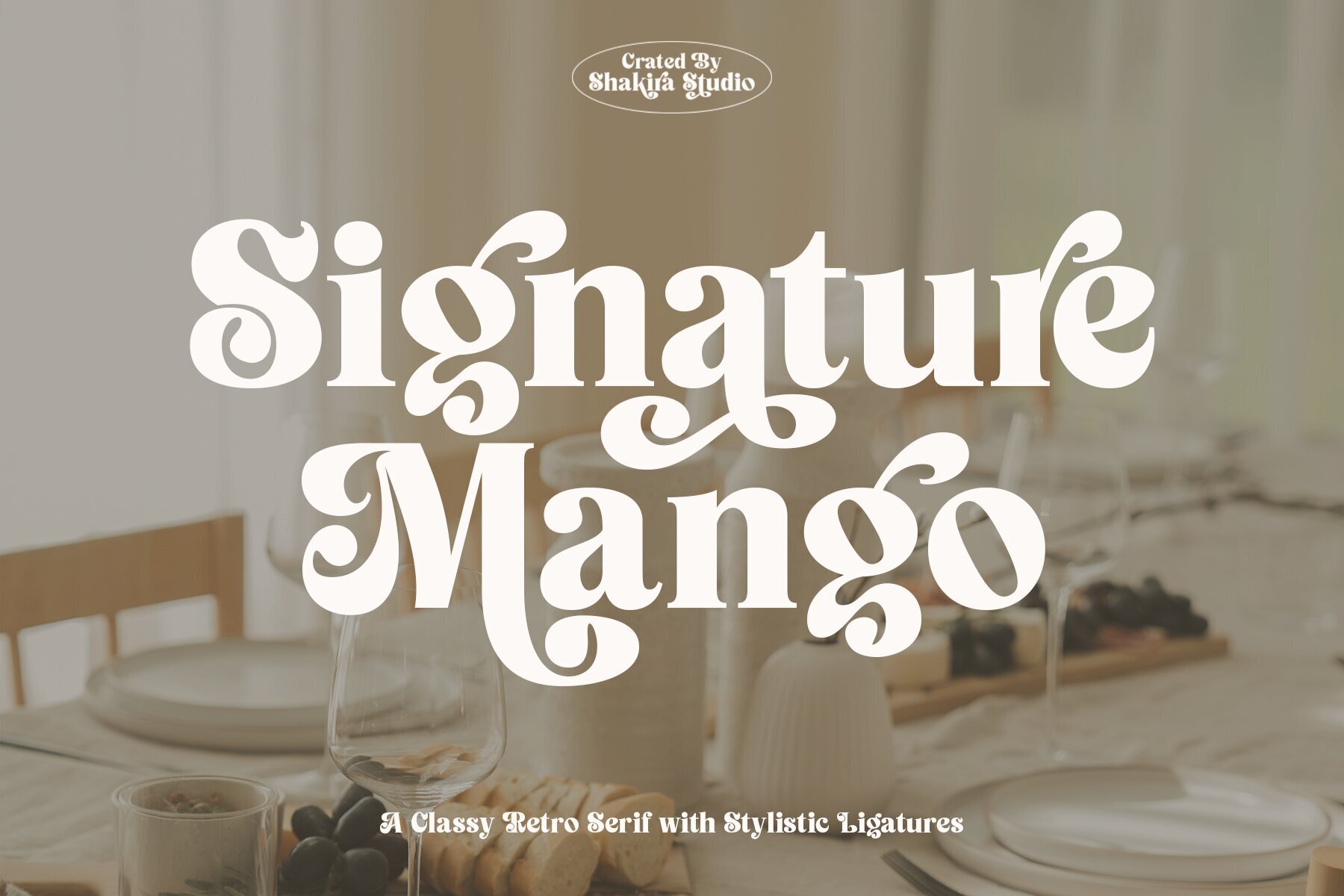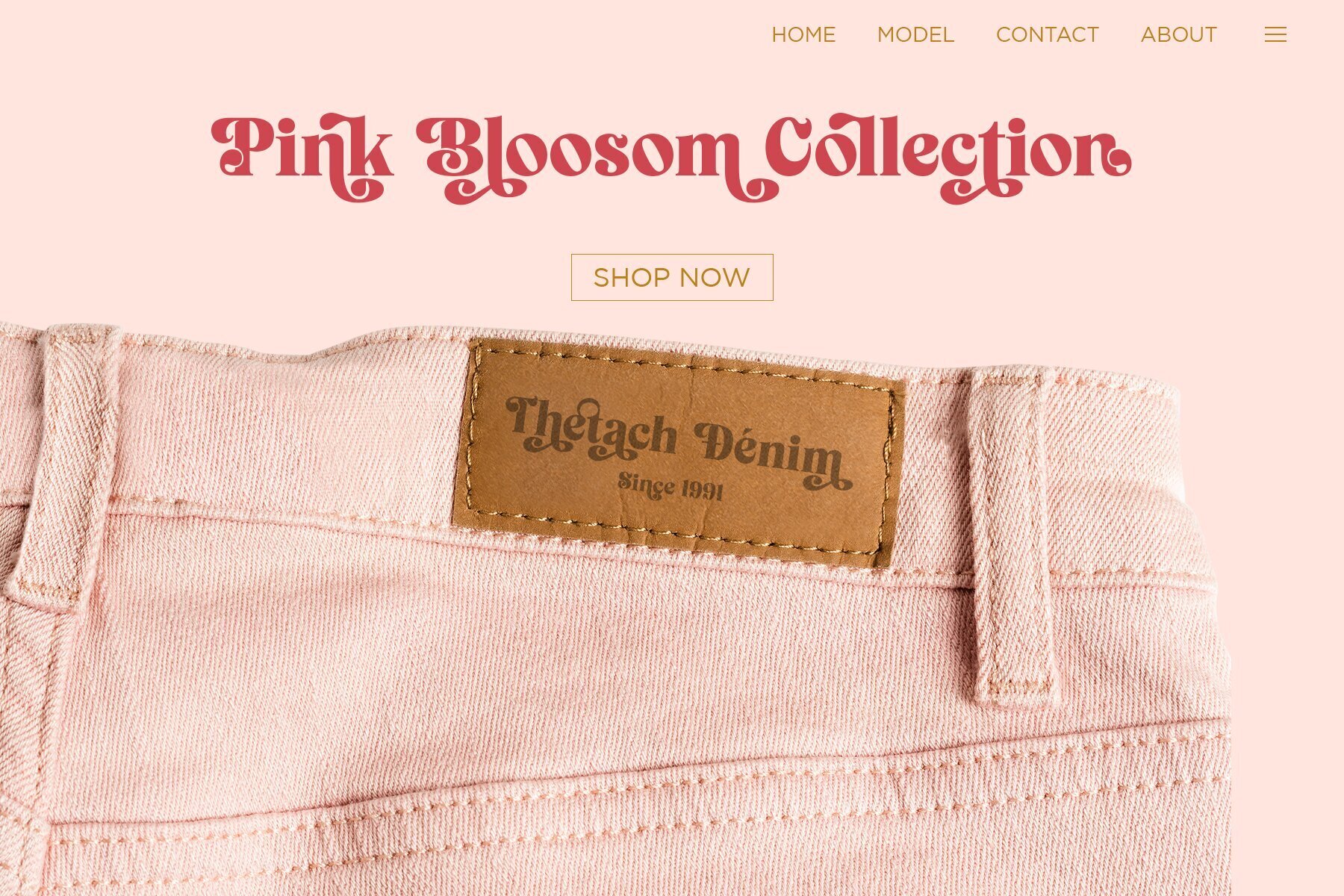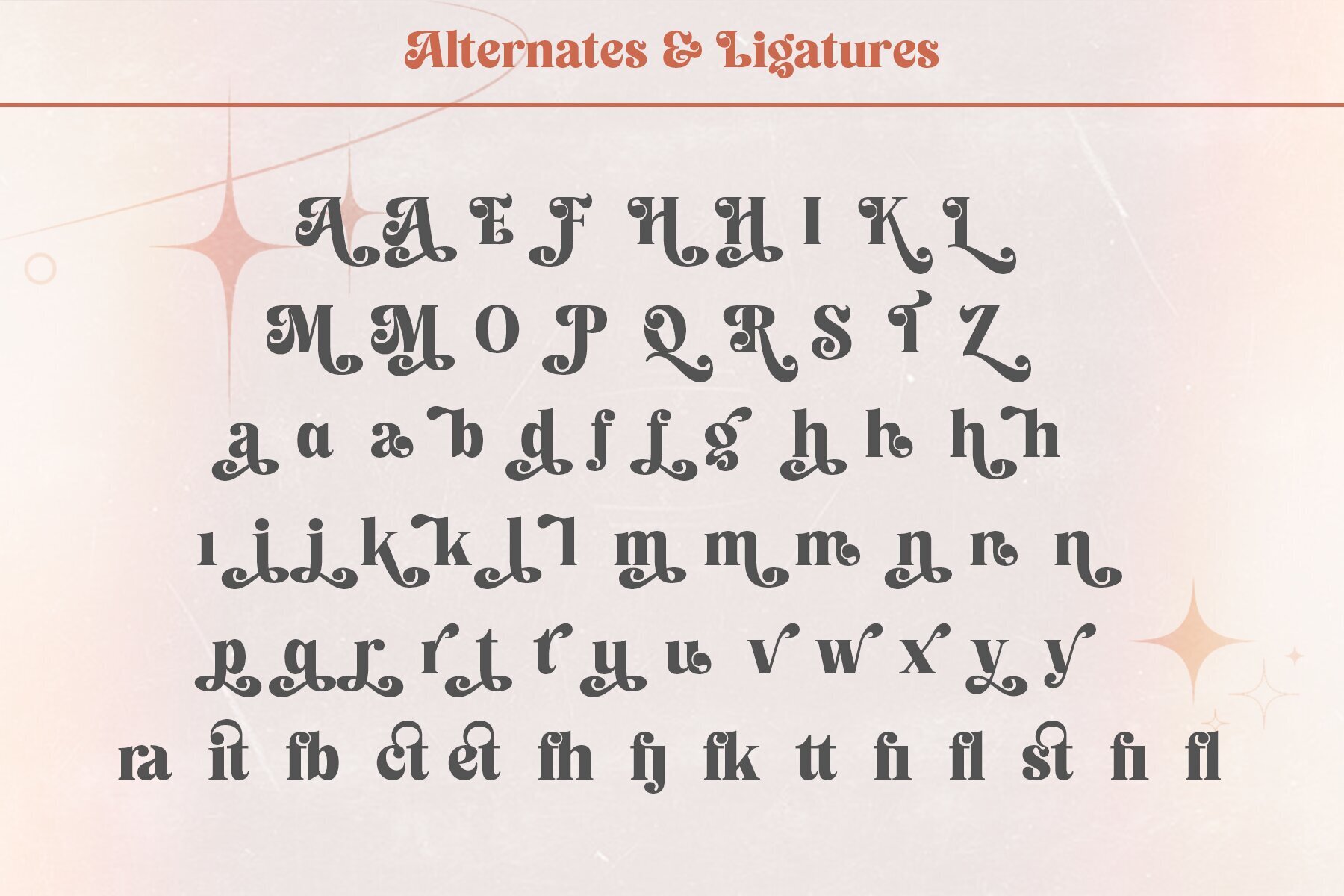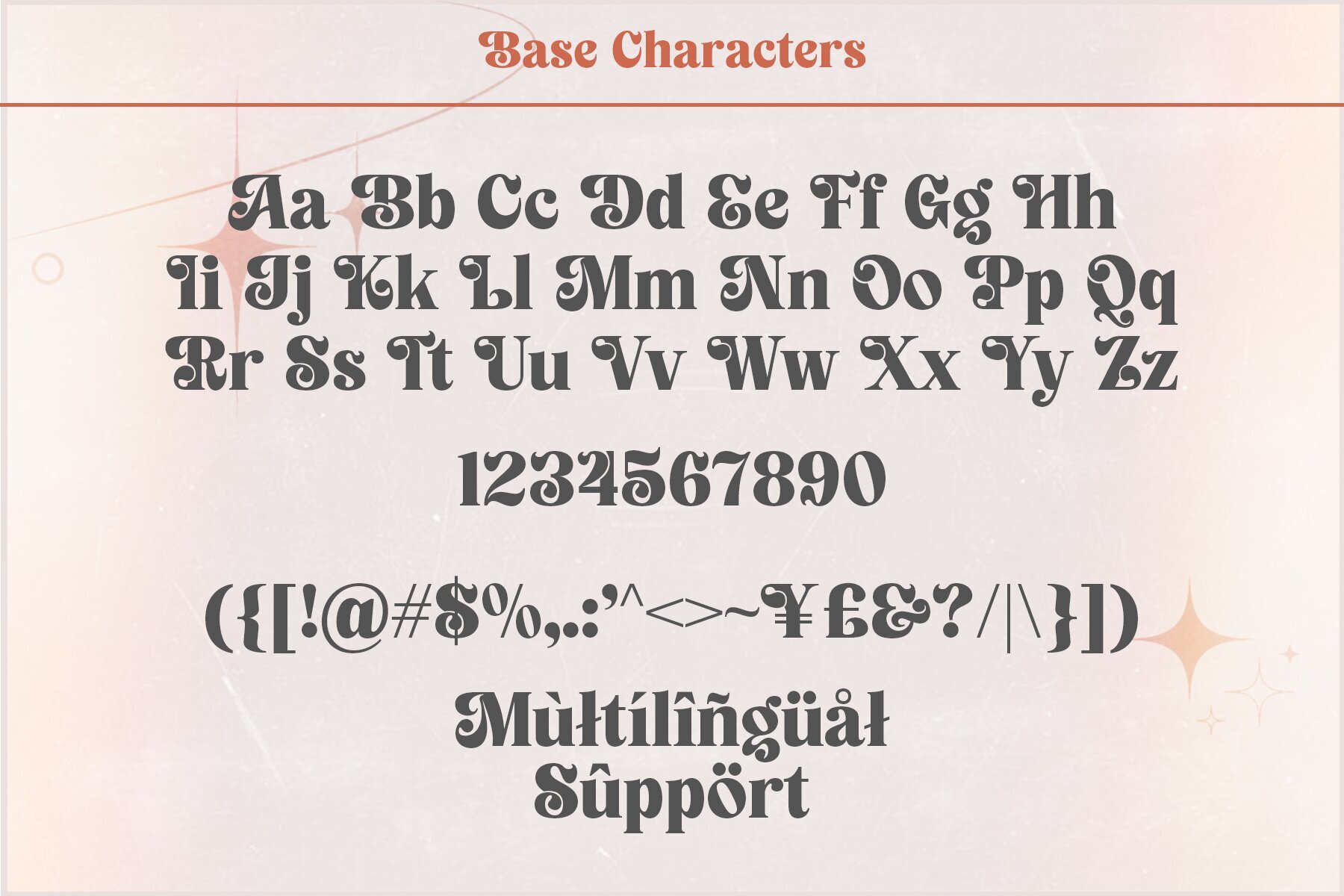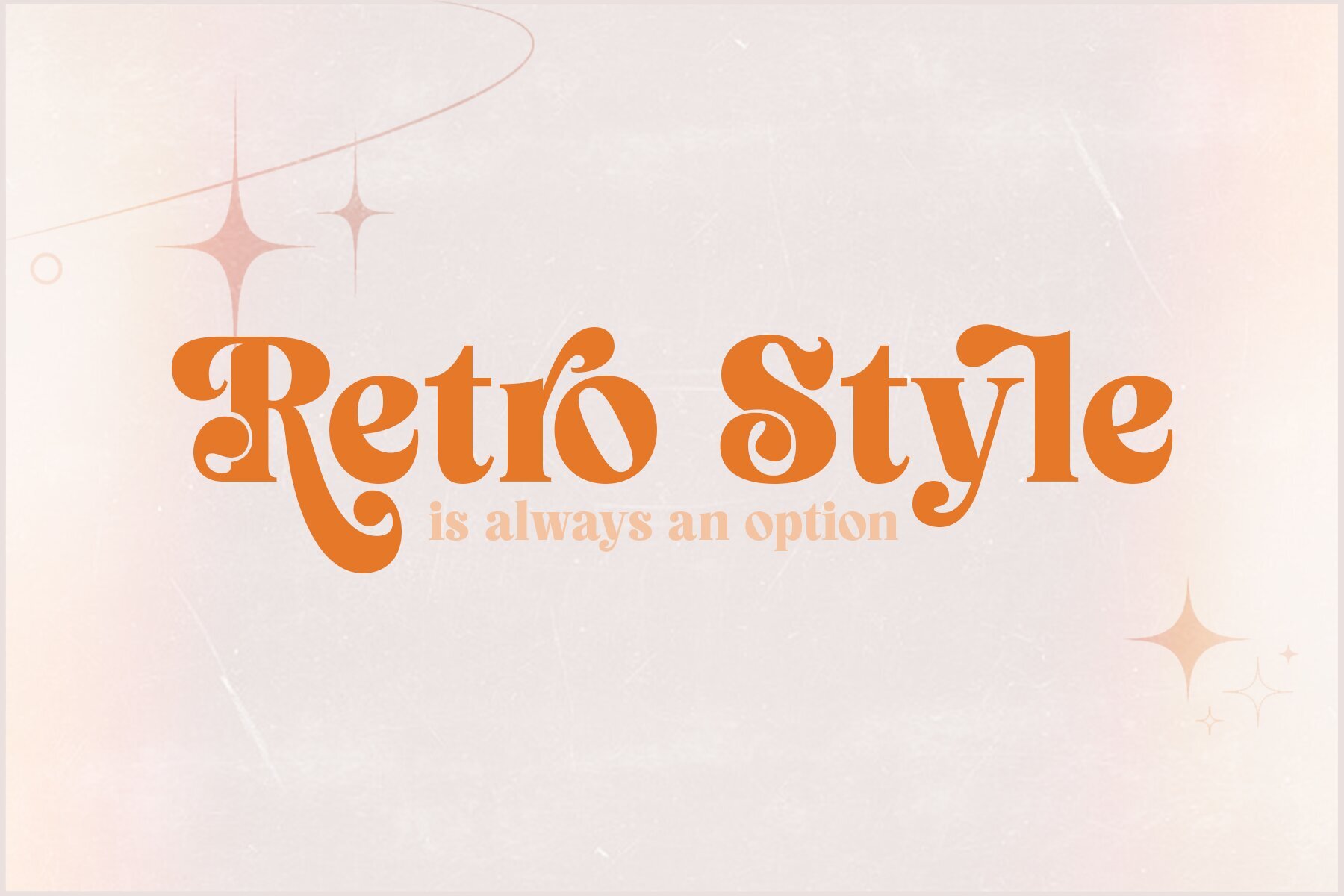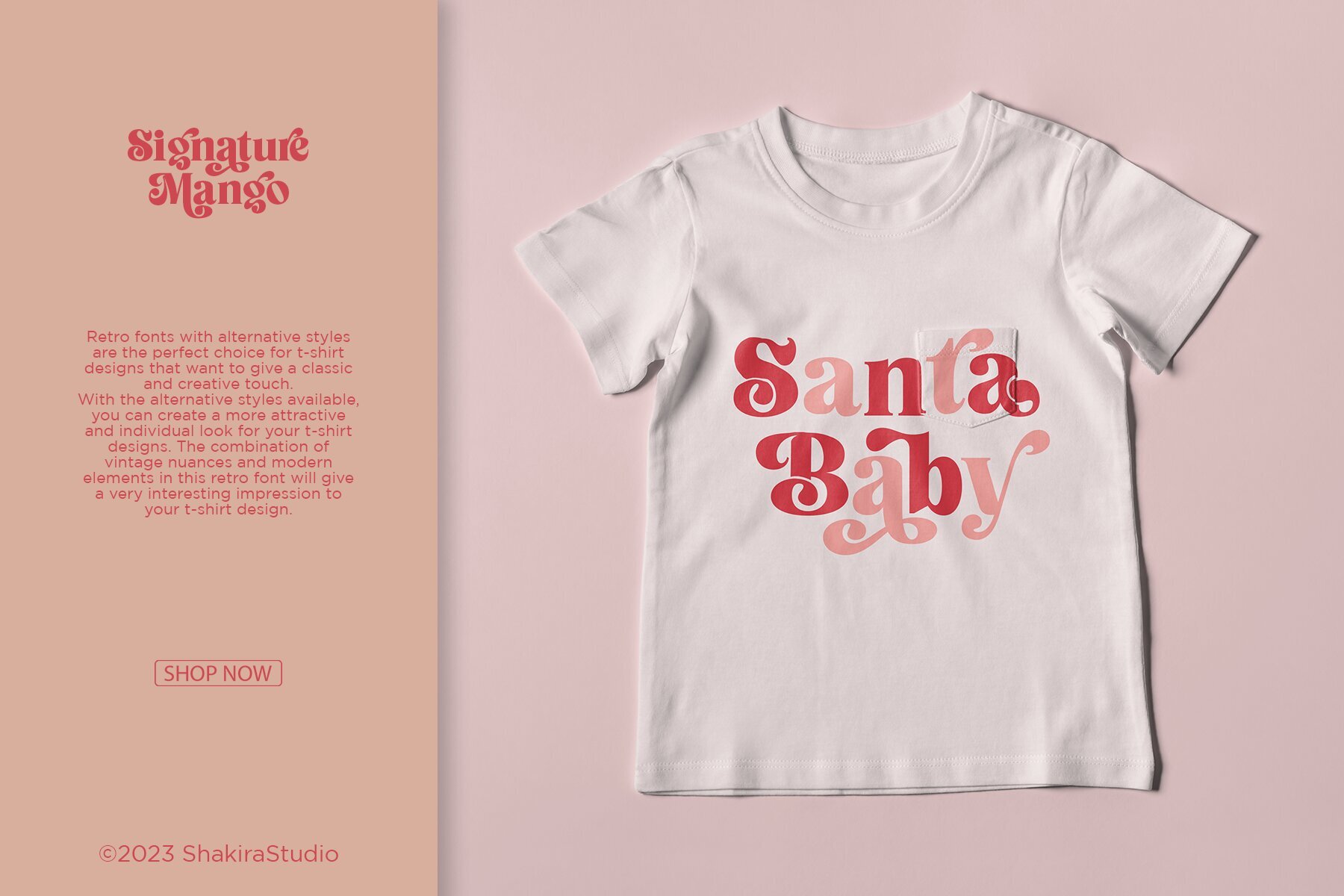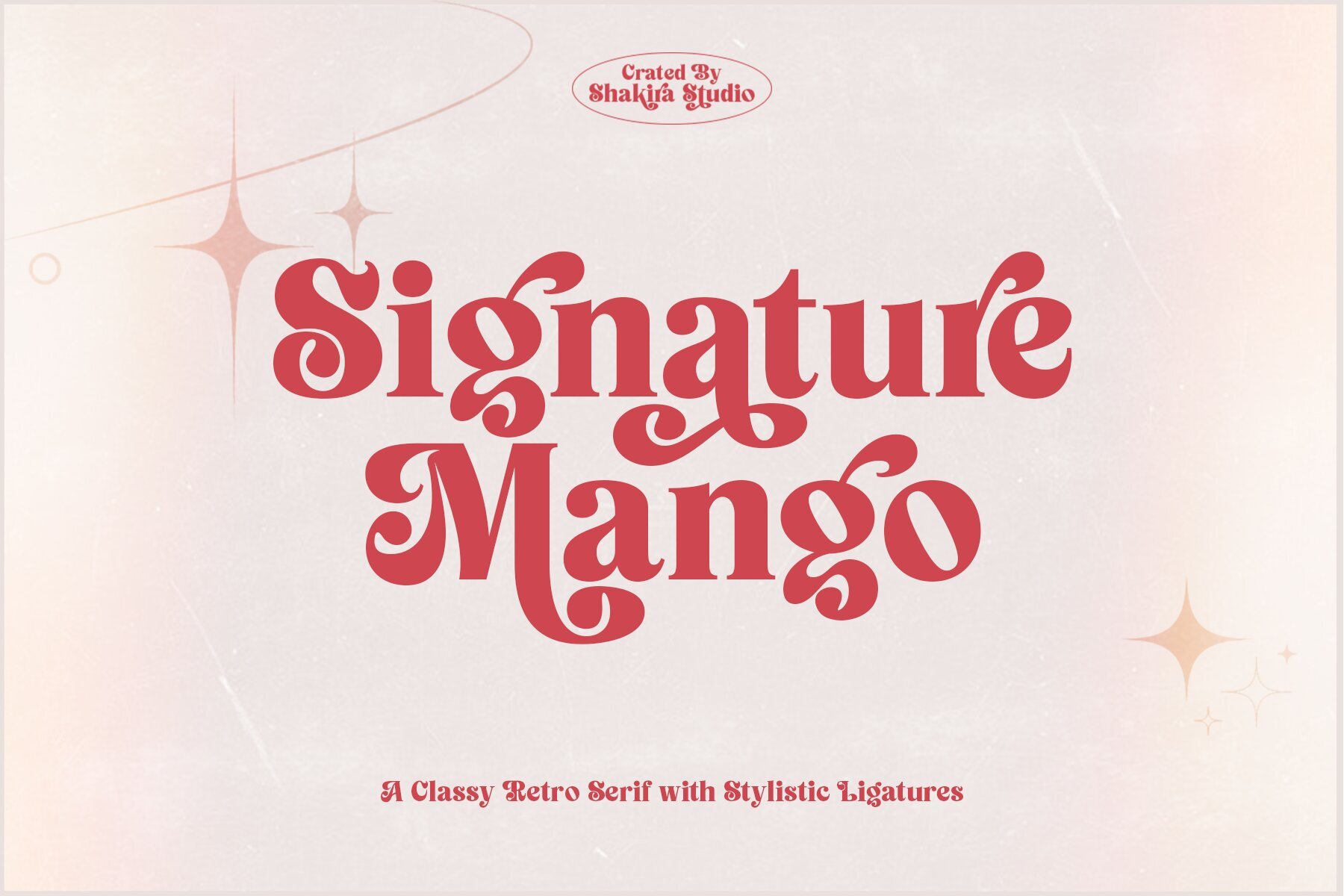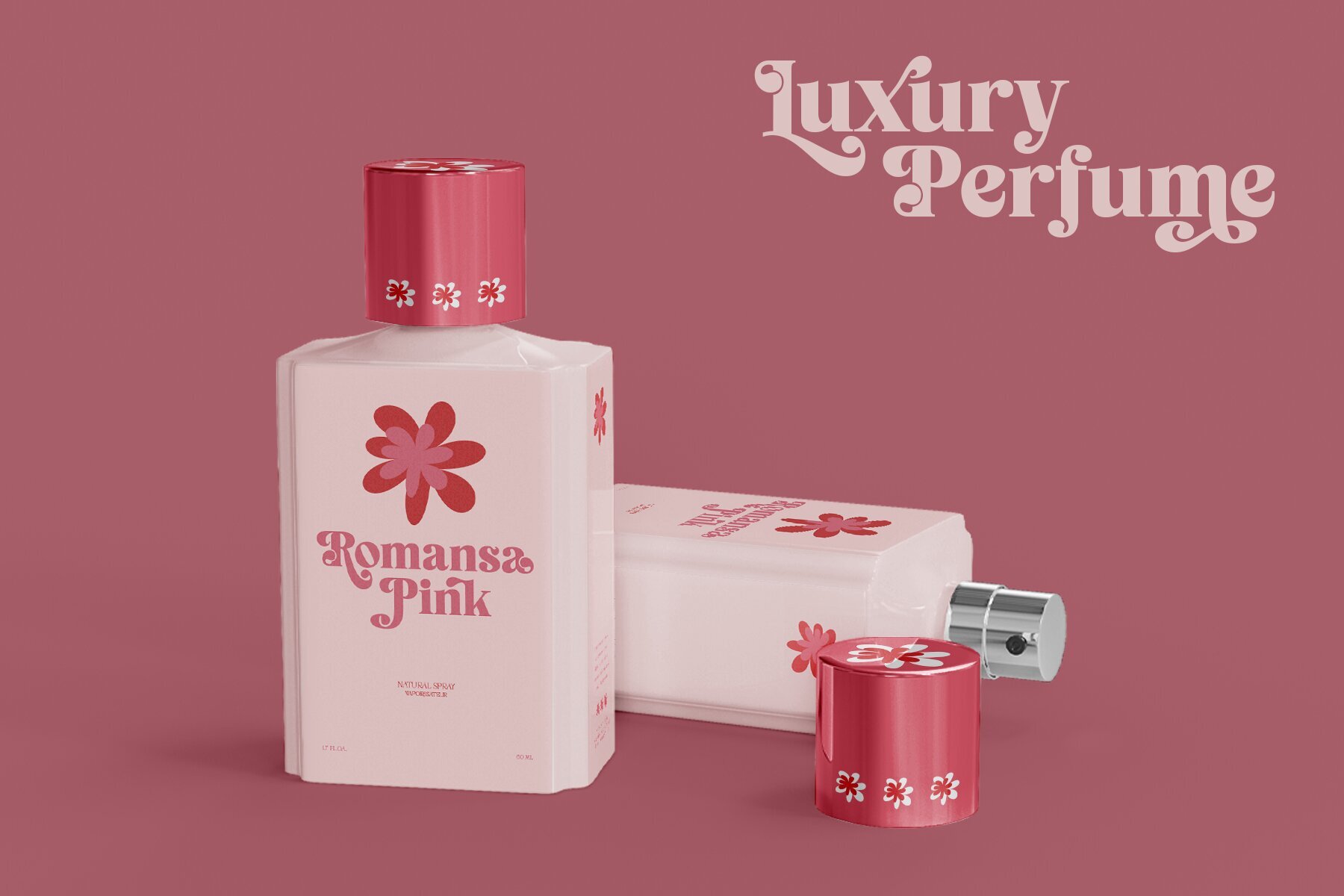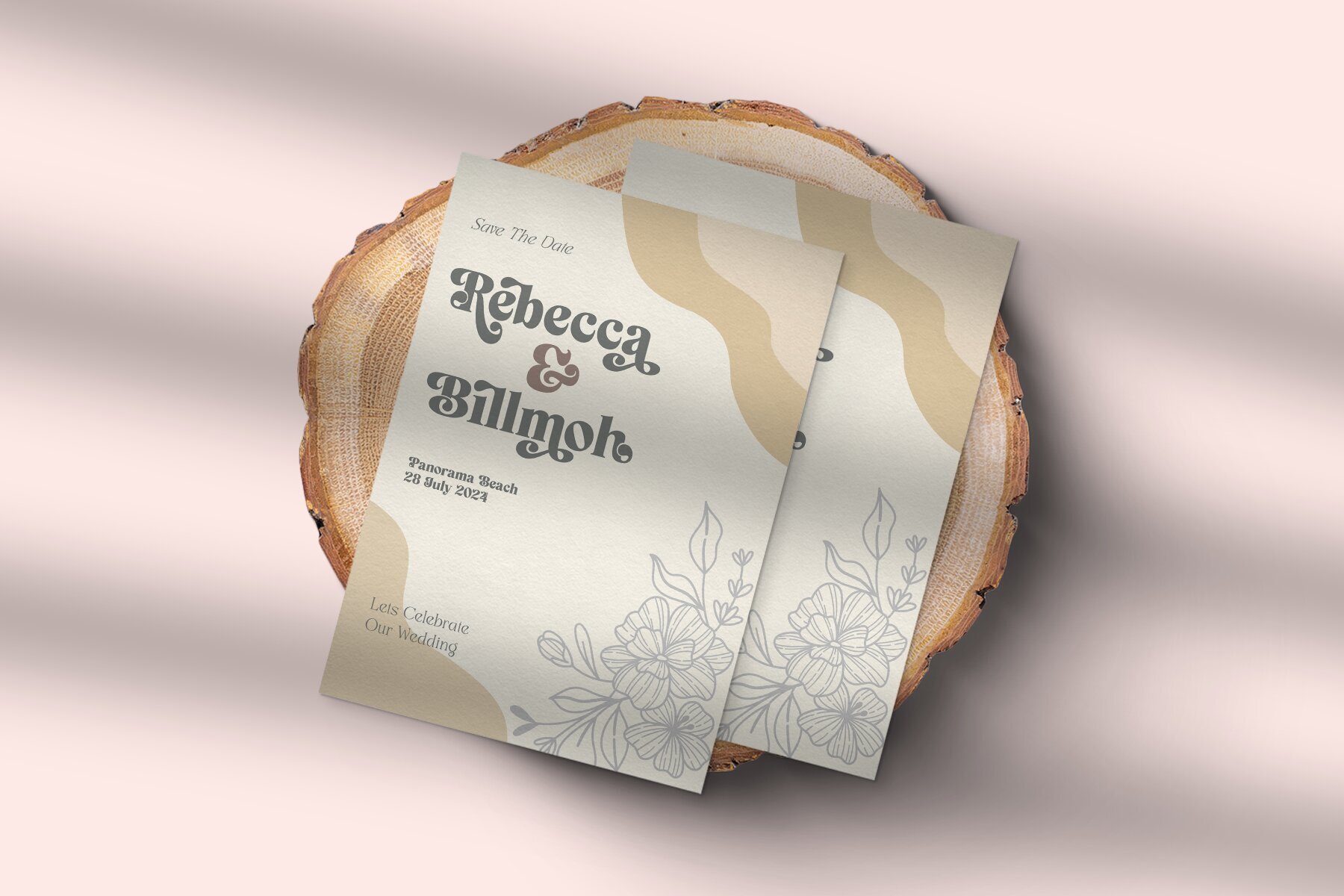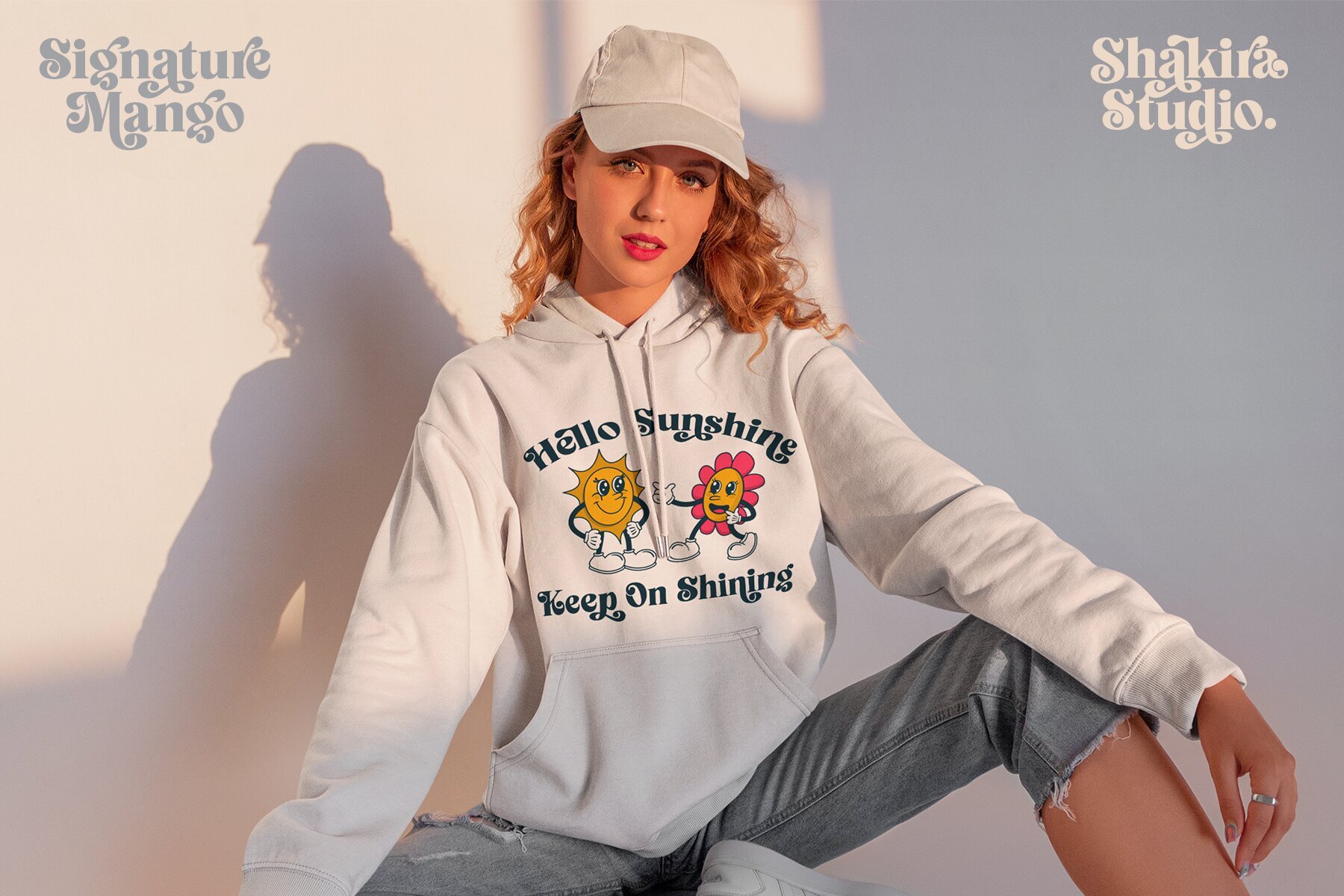
Signature Mango Font
Signature Mango redefines the modern retro serif typography, seamlessly merging timeless retro aesthetics with contemporary chicness. This font stands as the epitome of sophistication, setting trends in today's design world. Ideal for creating striking designs in a competitive landscape, Signature Mango is versatile across various applications. Whether designing a high-end fashion brand's logo, an upscale menu, or a luxurious wedding invitation, this font imparts a touch of refined glamour that is currently in high demand. This font supports a wide range of languages, including Afrikaans, Albanian, Catalan, Croatian, Czech, Danish, Dutch, English, Estonian, Finnish, French, German, Hungarian, Icelandic, Italian, Lithuanian, Maltese, Norwegian, Polish, Portuguese, Slovenian, Spanish, Swedish, Turkish, and Zulu.Signature Mango: Modern Retro Serif Elegance
Multilingual Character Support